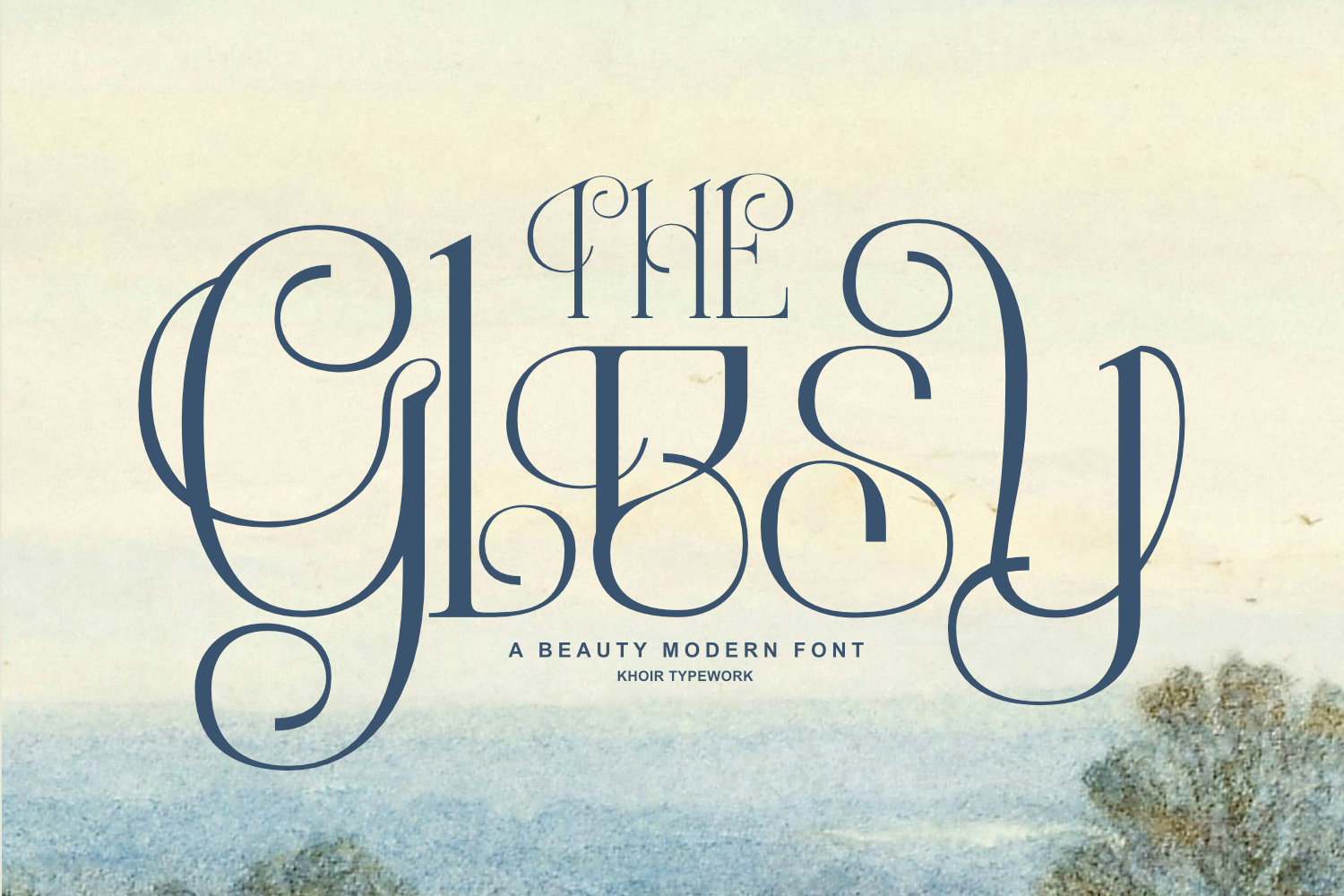
Glesy A Beauty Modern Font
Glesy
Glesy - A sleek looking font with curves inspired by the Art Nouveau style of design (1890–1910). With soft curves combined with the right letter shape, it gives a distinctive impression and can be applied to any situation. Suitable for logo design, branding, packaging, covers and much more.